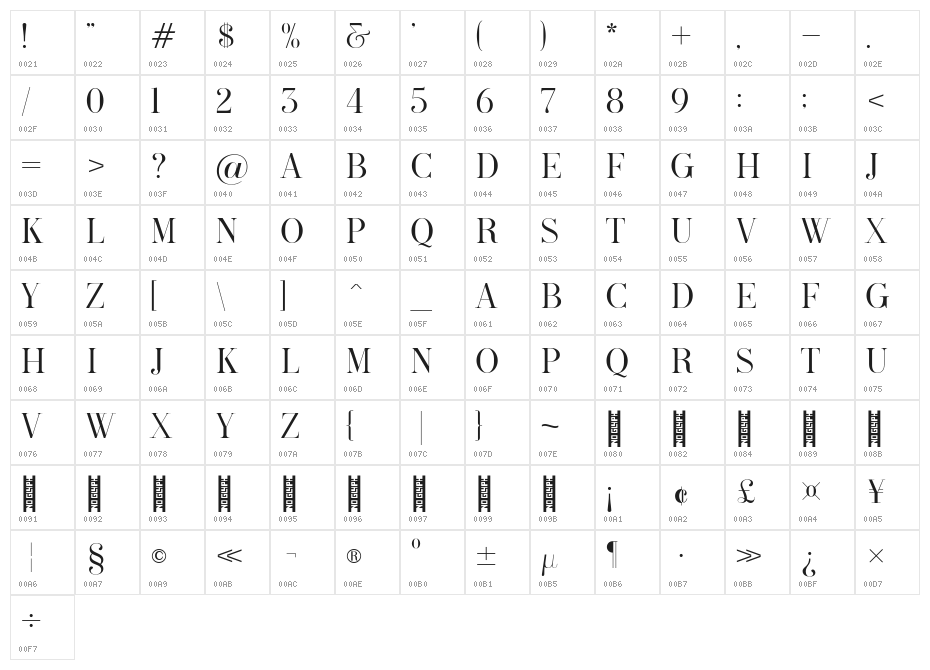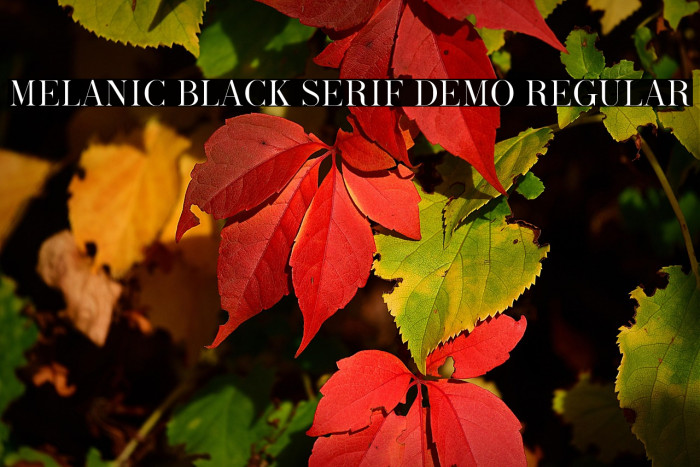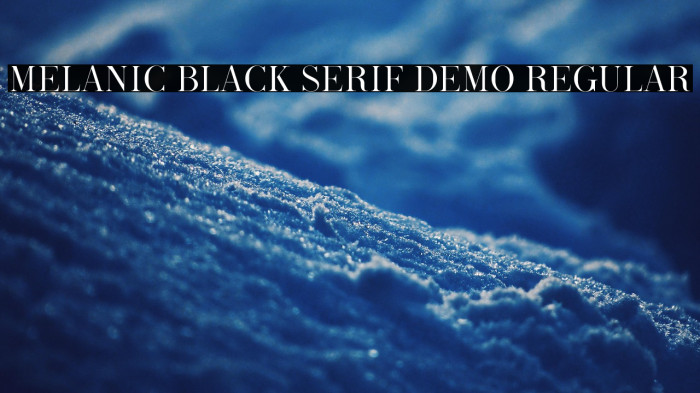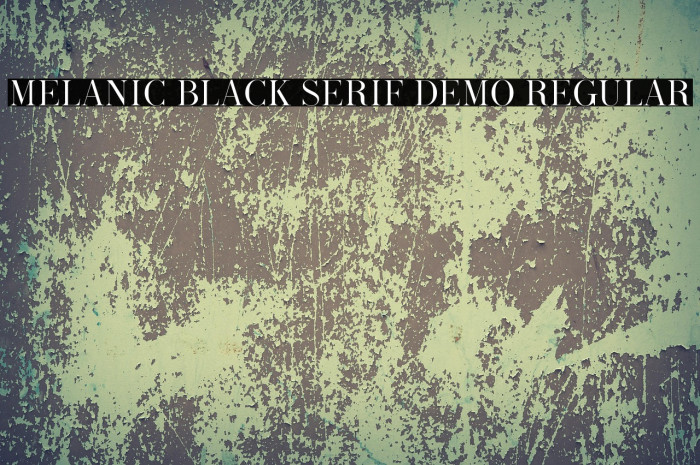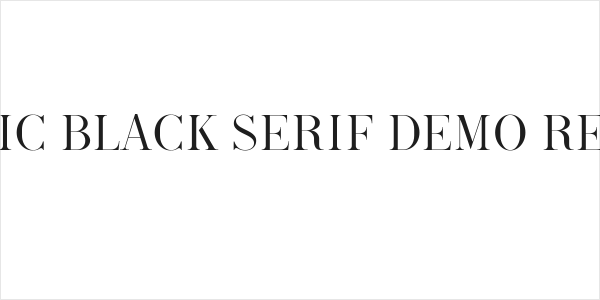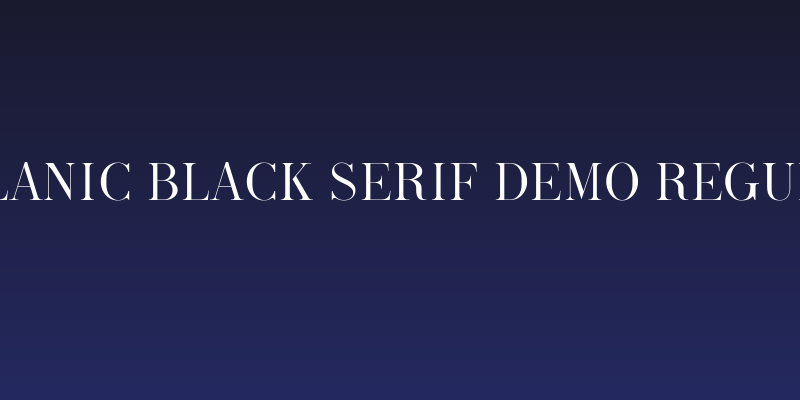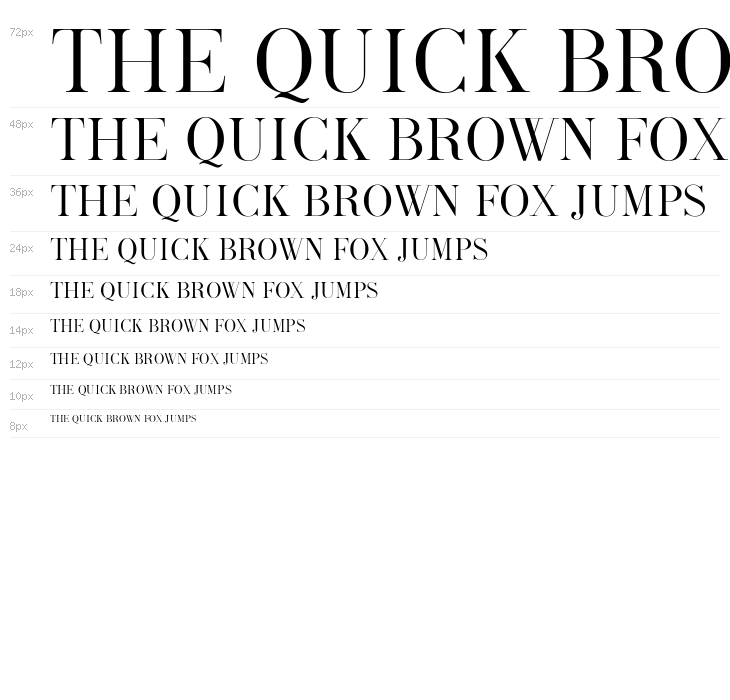
Melanic Black Serif Demo Regular Font
Melanic Black Serif Demo Regular Description
This font features a classic serif style with elegant, elongated strokes and high contrast between thick and thin lines. The uppercase letters are tall and stately, while the lowercase letters maintain a refined and sophisticated appearance. The numerals are designed with a traditional flair, complementing the overall aesthetic. Special characters are crafted with attention to detail, enhancing the font's versatility. The serifs are sharp and pronounced, adding a touch of formality and timelessness to the design.